43 Best Fonts for Beauty Brand Projects to Use in 2026
Choosing the right visual identity is a game-changer for any cosmetic business, and selecting the perfect Fonts for Beauty Brand projects is the first step toward building trust with your customers. In 2026, the market is more crowded than ever, meaning your skincare, hair care, or makeup packaging needs typography that speaks volumes about your quality. Whether you are aiming for a minimalist luxury vibe or a playful, bold aesthetic, these 43 handpicked typefaces will give your brand the professional edge it deserves.
1. Melgis Font
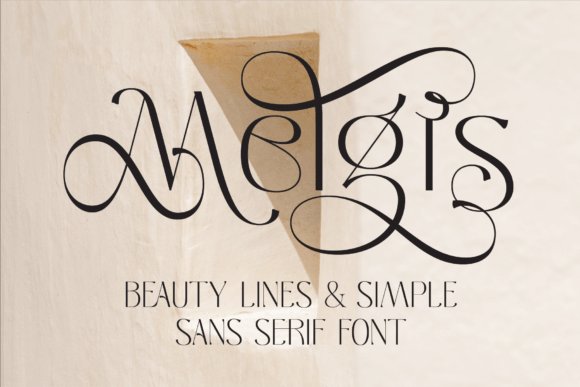
Melgis Font represents a harmonious blend of minimalist geometry and decorative fluidity. As a standout choice for those seeking fonts for beauty brand identities, it offers a clean sans serif foundation that is elevated by intentionally curved lines and artistic swash glyphs. This unique combination allows designers to maintain a sense of modern professionalism while injecting a softer, more feminine energy that resonates deeply with the skincare and wellness sectors. The font’s architecture is designed to remain legible at small scales on cosmetic labels while providing enough character to command attention on large-scale retail posters.
Beyond its primary structure, the inclusion of custom swashes makes Melgis an exceptionally versatile tool for creating bespoke logotypes. Whether you are developing a high-end magazine layout or a boutique digital storefront, these graceful accents provide a custom-lettered feel that suggests artisanal quality. It excels when paired with high-resolution photography, where its elegant curves can mirror the natural silhouettes often found in beauty-focused visual storytelling, making it a definitive asset for contemporary branding kits.
2. Akros Font
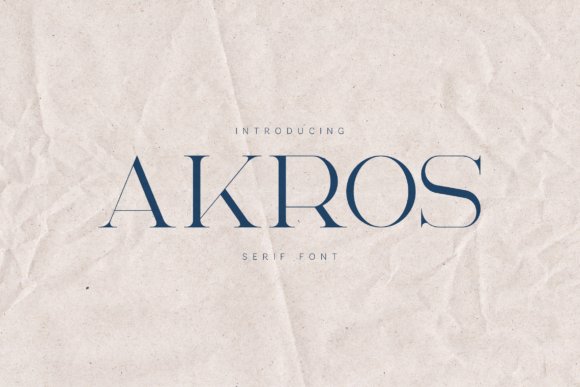
Akros Font is a masterclass in high-contrast typography, specifically engineered for editorial discipline and high-fashion aesthetics. This typeface bridges the gap between intellectual refinement and bold, structural power, featuring razor-thin hairlines that transition sharply into substantial stems. When searching for fonts for beauty brand applications that require a sense of ‘haute couture,’ Akros delivers a rhythmic visual pace that feels both energetic and sophisticated. Its slender proportions and sharp terminals make it an ideal candidate for luxury packaging where every millimeter of space must convey a sense of premium exclusivity.
In practical application, Akros thrives in large-scale environments such as billboard headlines or oversized book covers where its intricate details are fully realized. For digital designers, it serves as a powerful centerpiece for boutique web headers, especially when contrasted with simple, low-contrast geometric types. Its ‘fashion-forward’ edge is particularly effective for fragrance branding or professional salon identities, providing a timeless classic aesthetic that remains firmly rooted in the current trends of global luxury markets.
3. Rokina Font
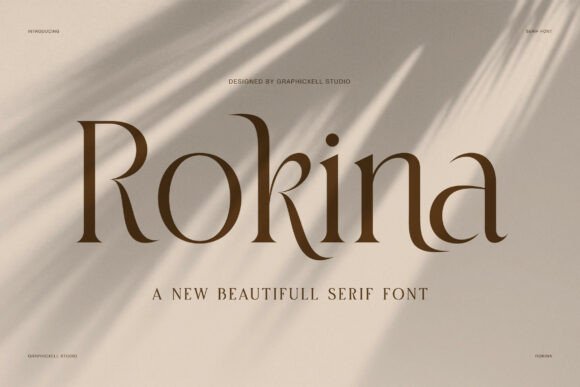
Rokina Font brings an air of organic luxury to the table, characterized by its sweeping curves and calligraphic terminals. It acts as a bridge between traditional serif heritage and a contemporary, chic flair, making it one of the most distinctive fonts for beauty brand projects currently available. The elongated, artistic descenders and flared serifs create a sense of movement and prestige that is often missing from more rigid typefaces. This makes Rokina particularly effective for lifestyle branding where the goal is to evoke a sense of effortless grace and high-end artisanal craftsmanship.
This typeface is an exceptional choice for designers working on upscale magazine headers or boutique wedding suites that require a personal, yet authoritative touch. Its sophisticated silhouette works beautifully on textured paper stocks and matte-finish packaging, where the play of light can highlight its unique, high-contrast terminals. By integrating Rokina into a visual identity, brands can instantly elevate their perceived value, signaling to a discerning audience that their products belong in the realm of premium, curated experiences.
4. Benpark Font
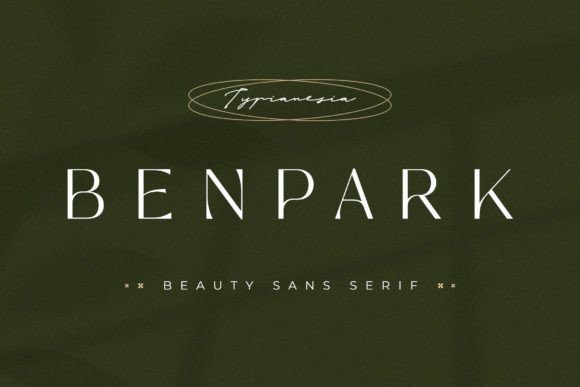
Benpark Font arrives as a robust yet graceful typographic solution for creators seeking a balance between high-impact visibility and delicate artistry. While it carries the weight of a bold serif, its structural integrity makes it a standout selection for a sophisticated beauty brand looking to establish a sense of heritage and trust. It excels in large-scale applications, such as boutique signage or premium product packaging, where the interplay of thick and thin strokes can truly shine under the spotlight of luxury marketing.
Beyond its initial elegance, this typeface offers a versatile personality that adapts seamlessly across various stationery and digital platforms. For designers working on wedding collateral or high-end social media campaigns, Benpark provides a distinct visual anchor that feels both timeless and current. Its authoritative presence ensures that brand messaging remains legible and captivating, making it a reliable asset for any visual identity project that prioritizes class and distinction.
5. Odida Font
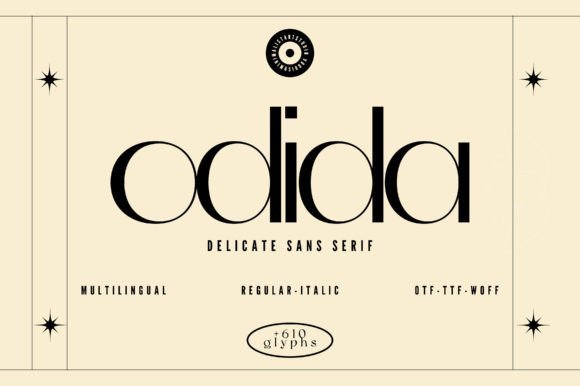
Odida Font is the epitome of modern minimalism, offering a sleek sans serif profile that resonates deeply with contemporary fashion and lifestyle sectors. Its clean lines and balanced proportions make it an ideal font for beauty brand initiatives that aim for a “less is more” aesthetic. Whether you are developing a logo for a new skincare line or designing a high-fashion digital lookbook, Odida provides a crisp, breathable quality that allows the imagery and product benefits to take center stage without distraction.
The font’s sophisticated architecture is purpose-built for luxury brand advertising where clarity and chic execution are paramount. It avoids the clutter of overly decorative elements, instead relying on its geometric precision to convey a sense of premium quality and professional reliability. Incorporating Odida into your design toolkit allows for a seamless transition between print advertisements and mobile-first web interfaces, ensuring a consistent and polished brand experience for the discerning consumer.
6. Brillant Font
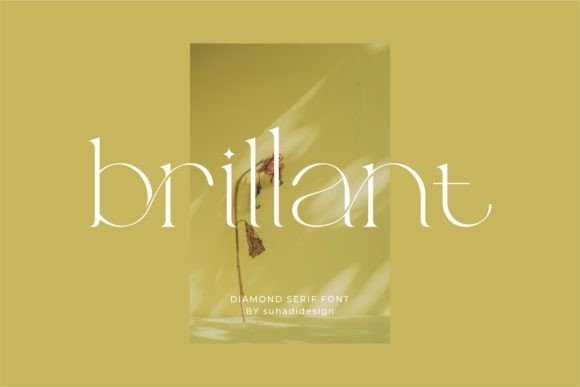
Brillant Font stands as a contemporary favorite within the design community, specifically tailored for those who require a stylish, modern serif that radiates exclusivity. Its popularity in the editorial world stems from its ability to elevate the perceived value of any publication, from high-gloss beauty magazines to niche art books. The typeface captures a unique blend of classic elegance and trendy flair, making it the perfect choice for branding projects that need to feel both established and forward-thinking in their visual communication.
When utilized for business cards, logos, or editorial headers, Brillant adds a layer of depth and sophistication that is hard to replicate with standard fonts. It is particularly effective for beauty brands that want to emphasize a premium, boutique feel through their typography. By focusing on refined curves and a high-contrast weight distribution, this font ensures that every word on a page or screen contributes to an overall narrative of luxury, quality, and impeccable taste.
7. Simple Plant Font
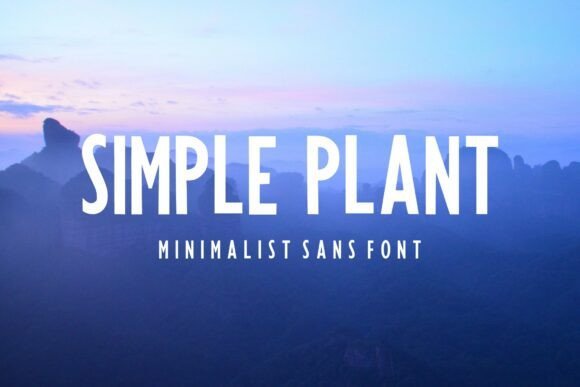
Simple Plant emerges as a masterclass in minimalist typography, offering a tall and condensed profile that immediately draws the eye upward. This typeface is defined by its clean, elongated strokes and an uncompromising devotion to the ‘less is more’ philosophy. It is particularly effective for editorial layouts and modern lifestyle branding where vertical space needs to be utilized with grace. By providing a sharp, architectural quality, it transforms standard headers into sophisticated design statements that feel both contemporary and timeless.
When searching for the perfect Fonts for Beauty Brand, this typeface offers a distinct advantage for clean skincare or sustainable cosmetic lines. Its legibility is unmatched, making it a reliable choice for ingredient lists on packaging or sleek web navigation menus. Pairing Simple Plant with a softer, organic script can create a compelling typographic hierarchy that balances clinical precision with human warmth, ensuring your brand identity remains approachable yet professionally polished.
8. Montega Font
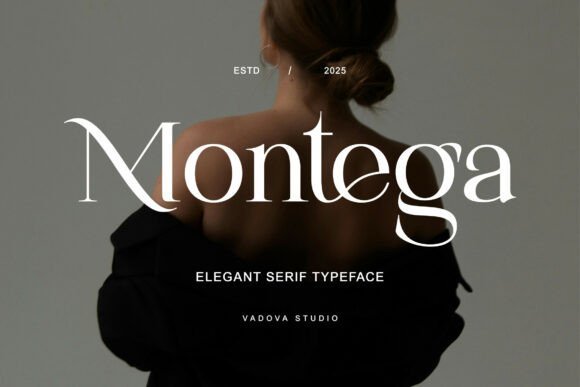
Montega is a high-contrast serif that radiates luxury and feminine strength. Its design language is characterized by graceful curves and razor-thin serifs that create a rhythmic, melodic reading experience. Unlike more traditional serifs, Montega feels light and breathable, making it an exquisite selection for high-end fashion mastheads and luxury brand logos. The deliberate weight distribution between its thick and thin strokes provides a sense of motion and confidence that captures the essence of modern opulence.
In the context of selecting Fonts for Beauty Brand, Montega excels at establishing an upscale, boutique atmosphere. It is a powerful tool for fragrance packaging or high-performance makeup branding where the goal is to convey heritage and premium quality. Using this font for primary logotypes ensures that the brand name is perceived as a mark of excellence, effectively anchoring the visual identity in a world of refined aesthetics and sophisticated charm.
9. Honey Dove Font
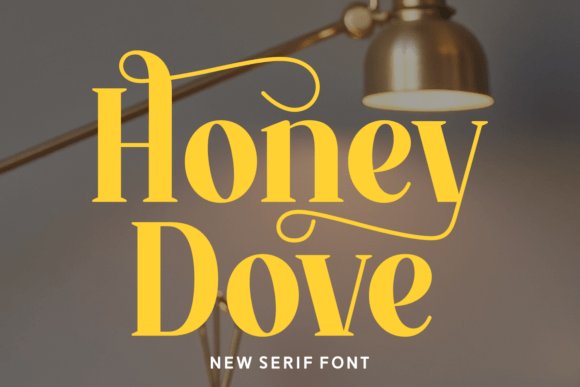
Honey Dove introduces a romantic and soft-edged approach to modern serif design, blending classic typographic principles with a trendy, boutique-inspired flair. Each character is crafted with a delicate touch, featuring subtle calligraphic influences that evoke feelings of intimacy and handcrafted quality. This makes it an exceptional choice for social media influencers and creative entrepreneurs who want their visual presence to feel personalized and emotionally resonant, rather than just corporate.
This typeface is an indispensable asset when considering Fonts for Beauty Brand that focus on wellness, bridal aesthetics, or organic ingredients. Its sweet and transfixing curves work beautifully on invitations and promotional posters, offering a dreamy vibe that captures the imagination of a trendy audience. Honey Dove doesn’t just display text; it sets a mood of modern romance and effortless glamour, making it a top-tier candidate for any brand looking to build a deep, stylish connection with its followers.
10. Flowmery Font
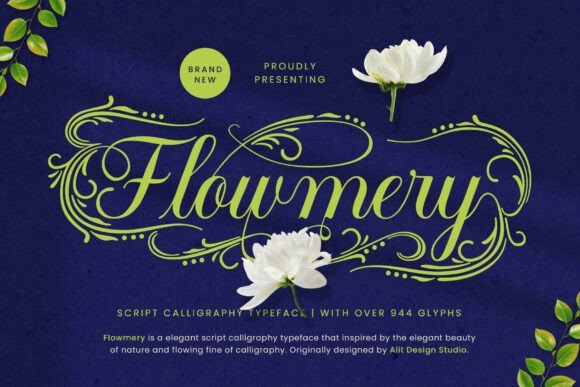
Flowmery Font is a masterclass in organic elegance, drawing its breath from the fluid lines of the natural world and the disciplined grace of traditional calligraphy. This script typeface is particularly effective as one of the premier fonts for beauty brand identities that prioritize a botanical or artisanal image. With over 944 glyphs at your disposal, it offers an incredible degree of customization, allowing designers to weave intricate swashes and seamless ligatures into high-end skincare packaging or custom logotypes that feel uniquely personal and hand-rendered.
Beyond its visual appeal, Flowmery serves as a versatile toolkit for luxury wellness projects and editorial layouts. The meticulous design ensures that every character connects with a harmonious rhythm, making it an excellent choice for wedding stationery, sophisticated social media quotes, and website headers. By integrating this typeface, creators can establish a visual narrative of ‘natural charm,’ perfectly suited for premium cosmetic lines that want to communicate softness, purity, and timeless sophistication.
11. Decemberain Font
Decemberain Font offers a fresh take on the classic serif, blending casual accessibility with a refined, editorial polish. Available in both Regular and Italic styles, this typeface provides a balanced aesthetic that works exceptionally well for lifestyle and beauty branding where clarity and personality must coexist. Its clean lines and gentle curves make it an ideal primary font for beauty brand websites and print materials, providing a legible yet stylish experience that feels modern and approachable rather than overly traditional.
The versatility of Decemberain makes it a reliable choice for a wide range of creative applications, from minimalist product labels to sophisticated publishing layouts. Whether you are designing for a boutique florist, a high-end furniture brand, or a modern skincare line, the font’s distinct character helps differentiate a brand in a crowded market. The italic style, in particular, is perfect for emphasizing luxury taglines or creating a sense of movement in digital mastheads, ensuring your typography remains as dynamic as your brand.
12. London Font
London Font encapsulates the essence of ‘quiet luxury’ with its ultra-slender, sweeping letterforms that mimic the effortless signature of a high-fashion designer. This modern handwritten typeface is specifically tailored for those seeking a minimalist-luxe aesthetic, making it one of the most distinctive fonts for beauty brand signatures and premium cosmetics packaging. The wide, airy rhythm of the characters creates a sense of space and sophistication, allowing the typography to breathe even in high-contrast or busy visual environments.
Technically proficient and PUA encoded for ease of use, London provides full access to a variety of elegant swashes that can transform a simple brand name into a high-end logo. It is the perfect partner for modern serifs, creating a sophisticated hierarchy for jewelry lines, luxury lifestyle blogs, and professional photography watermarks. Use it to add a human touch to digital interfaces or to elevate the tactile experience of premium stationery, ensuring every touchpoint of your brand exudes international style and contemporary grace.
13. Elinora Font
Elinora is a masterclass in capturing the delicate intersection of romance and artisan craftsmanship. This handwritten script font features a rhythmic, bouncy baseline that mirrors the natural cadence of a personal note, making it an exceptional asset for those curating a specific font for beauty brand identities that value authenticity. Its soft, rounded letterforms provide an approachable yet sophisticated energy, while the subtle heart-dotted ‘i’ adds a touch of whimsical sincerity without compromising professional legibility. It is particularly effective for small-batch skincare labels or boutique wellness services looking to establish a warm, human-centric connection with their audience.
Beyond its aesthetic appeal, Elinora excels in digital-first environments. Its organic lines remain crisp on mobile screens, making it a reliable choice for Instagram story overlays, personalized quote graphics, and lifestyle blog headers. When paired with a minimalist color palette, this typeface transforms into a luxury signature, perfect for gold-foiled business cards or custom wedding stationery. For designers working within the ‘clean beauty’ niche, Elinora offers a handcrafted feel that reinforces the concept of purity and care, ensuring that every headline feels as though it were written just for the customer.
14. Seliya Gadner Font
Seliya Gadner redefines the modern serif with its high-fashion silhouette and dramatic stroke contrast. This typeface is built for the high-end market, where visual prestige is paramount. Its sharp, elegant serifs and artistic ligatures create a bespoke look that rivals custom-lettered logotypes, positioning it as a top-tier font for beauty brand packaging and luxury cosmetic lines. The verticality of the characters exudes a sense of tall, slender grace often seen in prestigious editorial layouts and high-gloss fashion magazines, making it the go-to selection for brands that want to command authority in the prestige beauty sector.
The versatility of Seliya Gadner lies in its ability to remain timeless while feeling entirely contemporary. Whether utilized for a chic perfume bottle label or a premium spa menu, the typeface brings a level of effortless sophistication that is difficult to replicate with standard serifs. It functions beautifully as a primary branding element, where the unique character interactions can be leveraged to create memorable icons and mastheads. For creative directors aiming to evoke a sense of heritage and luxury, this font provides the necessary weight and refinement to elevate any product from shelf-ready to iconic status.
15. Super Moon Font
Super Moon is an ethereal display serif that brings a sense of nighttime magic and celestial wonder to the design landscape. Characterized by its elongated vertical proportions and razor-sharp, pointed serifs, this font offers a dreamlike aesthetic that is uniquely suited for mystical or storytelling-driven projects. It is a standout font for beauty brand collections that focus on nighttime skincare routines, astrological wellness products, or luxury candles. The high-contrast strokes create a shimmering effect when set against dark backgrounds, effectively drawing the eye and establishing a high-impact focal point for editorial headers and cosmetic branding.
Technically, Super Moon is optimized for display use, ensuring that its delicate details and slender forms remain sharp at large scales. This makes it an ideal candidate for theatrical movie posters, luxury boutique signage, and high-fashion digital campaigns. To maximize its impact, designers can pair it with metallic textures or deep, atmospheric gradients to lean into its cosmic inspiration. For brands that want to break away from the mundane and offer their customers an experience rooted in wonder and elegance, Super Moon provides the perfect typographic bridge between the terrestrial and the divine.
16. Kayla Font
Kayla introduces a breathtakingly intricate aesthetic to the world of decorative typography, where each uppercase character serves as a miniature canvas for a lush, butterfly-filled garden. This typeface transcends mere lettering, offering a complex visual texture that merges natural organic shapes with a bold, structured silhouette. It is an exceptional choice for luxury beauty brands that want to communicate a sense of rebirth, metamorphosis, or botanical purity through their visual identity.
Beyond its ethereal appearance, Kayla is a powerful tool for niche marketing materials, such as high-end cosmetic packaging, floral-infused skincare lines, or boutique salon signage. When searching for fonts for beauty brands that require a high-impact, illustrative touch, this font stands out by providing a dreamy, fairytale quality that feels both premium and magical. It is best utilized in large-scale headers or hero sections where its meticulous butterfly patterns can be fully appreciated by the audience.
17. Cakep Font
Cakep Font embodies the fluid dynamics of water and the crystalline clarity of high-end jewelry, making it a premier script choice for modern wellness and apothecary brands. Its polished curves and effortlessly flowing ligatures suggest a sense of vitality and invigorating energy, perfect for products centered around hydration, purity, and organic luxury. The typeface resonates with a rhythmic grace, ensuring that brand names appear sophisticated yet approachable, capturing the ‘clean beauty’ aesthetic that dominates today’s market.
For designers crafting an identity for a spa, a luxury fragrance, or a revitalizing skincare series, Cakep offers the versatility needed to maintain elegance across both digital and physical mediums. It works exceptionally well on beverage labels and lifestyle content where a touch of ‘chic’ is required to elevate the user experience. Its sharp, clear characters ensure that even with its script-like movement, the messaging remains legible and authoritative, providing a distinct voice in the competitive beauty landscape.
18. Fragier Font
Fragier Font is a masterclass in modern serif design, blending traditional elegance with contemporary ligature work to create a highly fashionable typographic experience. Its high-contrast strokes and stylish swashes are designed to capture the eye, making it an ideal candidate for editorial beauty layouts, luxury magazine mastheads, and premium product branding. The font exudes a sense of curated sophistication, allowing beauty brands to position themselves as industry leaders in style and taste.
As a highly functional PUA-encoded typeface, Fragier allows designers to easily access a variety of unique glyphs that can transform a standard logo into a custom piece of art. This flexibility is particularly valuable for fragrance houses and high-fashion skincare brands looking to establish a signature look that is both timeless and trendy. Whether used for a minimalist book cover or a complex branding suite, Fragier delivers a level of refinement that naturally complements the upscale world of beauty and fashion.
19. Roundique Font
Roundique Font introduces a whimsical yet sophisticated calligraphy style that captures the essence of romance through its rhythmic, dancing baseline. This typeface is specifically crafted for designers seeking a soft, human-centric aesthetic for their creative projects. When selecting fonts for beauty brand identities, Roundique stands out for its ability to convey a sense of gentle care and artisanal quality, making it an exquisite choice for luxury skincare labels, organic beauty products, and bridal-focused cosmetic lines.
Functionality meets elegance with its PUA encoding, which provides seamless access to a rich variety of decorative glyphs and ligatures without requiring complex design software. Beyond simple text, this font acts as a decorative element itself, perfect for high-end spa menus, delicate perfume packaging, and personalized social media graphics that need a touch of hand-lettered luxury. Its fluid strokes ensure that your brand voice remains both approachable and distinctly premium in a crowded marketplace.
20. Lorimthy Script Font
Lorimthy Script Font bridges the gap between casual lifestyle aesthetics and professional branding with its smooth, flowing connections and friendly rounded terminals. This modern script offers a clean, legible rhythm that avoids the clutter often found in traditional calligraphy. For those searching for contemporary fonts for beauty brand assets, Lorimthy provides a chic, boutique-inspired feel that resonates particularly well with millennial and Gen Z audiences who value authenticity and effortless style.
This typeface excels in digital-first environments, providing a polished look for lifestyle blogs, influencer kits, and e-commerce storefronts. Its versatile nature allows it to transition perfectly from digital screens to physical packaging, such as botanical hair care bottles or minimalist candle labels. By balancing a handcrafted personality with a structured layout, Lorimthy Script ensures that your marketing materials feel both bespoke and expertly curated, elevating the overall perceived value of any artisanal collection.
21. Zacorsea Font
Zacorsea Font is a masterclass in modern luxury, featuring high-contrast serif structures and beautifully integrated ligatures that evoke an editorial feel. Designed with a focus on feminine strength and royal sophistication, this typeface is an ideal cornerstone for high-end fashion and cosmetic identities. In the search for the most impactful fonts for beauty brand logos, Zacorsea offers a sharp, clean elegance that commands attention on luxury perfume boxes, anti-aging serum bottles, and high-fashion editorial layouts.
The intricate ligature work within Zacorsea allows designers to create custom-looking wordmarks that feel unique and proprietary. Its graceful curves and refined letterforms provide a timeless quality that doesn’t rely on fleeting trends, making it a sustainable choice for brands aiming for a legacy status. Whether utilized for a minimalist spa signage or a bold, center-aligned magazine headline, this font brings a level of polished exclusivity that defines the visual language of modern premium beauty.
22. Opulent Editorial Font
Opulent Editorial Font captures the essence of high-fashion magazine spreads, offering a refined typographic experience that feels right at home in a luxury skincare campaign. Its high-contrast strokes and sharp serifs evoke a sense of heritage and prestige, making it a standout choice for designers looking for fonts for beauty brands that need to convey authority and exclusivity. Whether applied to a minimalist logo or a detailed product description, this typeface maintains its poise and clarity across various high-end applications.
Beyond its editorial roots, this font excels in creating a cohesive brand identity for boutique spas and premium cosmetics. The delicate balance between its thick and thin lines provides a rhythmic grace that complements sophisticated packaging and digital storefronts. By integrating this typeface into your design system, you ensure that every touchpoint—from social media graphics to physical labels—radiates a polished, curated aesthetic that resonates with a discerning clientele.
23. Nevalisa Font
Nevalisa Font breaks away from traditional serif constraints to offer an avant-garde look that is perfect for niche, artistic ventures. Its sharp, unconventional serifs and dynamic structural flow make it a compelling choice for a beauty brand font that aims to disrupt the market with a modern, edgy identity. This typeface is particularly effective for high-impact headlines and visionary editorial layouts where the typography itself serves as a central piece of art, drawing the eye with its distinctive character and creative flair.
Functionally, Nevalisa bridges the gap between classic elegance and futuristic design, providing a unique personality for cutting-edge beauty tech or experimental fragrance lines. The bold letterforms command attention on product packaging and digital headers, ensuring your brand message is both memorable and visually striking. If you are seeking a typeface that refuses to blend into the background, this font provides the necessary architectural strength and artistic depth to elevate your creative projects to a professional, high-concept level.
24. Carina Font
Carina Font is defined by its clean, modern lines and an effortless sense of sophistication that makes it incredibly versatile for everyday luxury. Designed with legibility and grace in mind, it serves as an excellent foundation for an organic beauty brand font or a wellness-focused lifestyle magazine. The letterforms are balanced and approachable, providing a welcoming yet professional atmosphere that builds trust with consumers through clear, stylish communication.
This typeface is especially suited for designers who need a reliable workhorse that doesn’t sacrifice aesthetic appeal for functionality. Its streamlined serif structure works beautifully in both digital interfaces and printed marketing materials, from sleek business cards to immersive web experiences. By choosing Carina, you are opting for a timeless style that enhances the visual quality of your brand without overpowering the content, allowing your products and services to take center stage in a crowded marketplace.
25. Notes Font
Notes Font is a masterclass in fluidity, offering a refined handwritten script that captures the essence of high-end penmanship. With its elongated, sweeping swashes and rhythmic flow, it brings a bespoke touch to any visual identity. For designers seeking sophisticated fonts for beauty brand projects, this typeface provides that sought-after signature look, making it an exceptional choice for luxury skincare labels or editorial photography watermarks where a personal, human connection is paramount to the brand story.
Beyond its visual appeal, the technical ease of Notes makes it a staple for modern creators. Because it is PUA encoded, users can access all the elegant flourishes and alternates without needing specialized design software. When paired with a minimalist serif, it creates a sophisticated contrast that excels in high-fashion branding, wedding invitations, and boutique stationery, ensuring every layout feels both intimate and professionally polished while maintaining a sense of timeless grace.
26. Charmy Font
Charmy Font introduces a playful and modern aesthetic to the world of script typography, characterized by its soft, thick strokes and a distinctive white-out border effect. This ready-to-use sticker appearance makes it an invaluable asset for social media assets, particularly for influencers and indie labels looking for approachable fonts for beauty brand identities. Its friendly volume and rounded terminals create an immediate sense of warmth, perfect for catching the eye on busy retail shelves or vibrant digital storefronts where accessibility is key.
This typeface is particularly effective for small-batch artisan products, such as handmade candles or organic cosmetics, where a human and accessible voice is required. By combining Charmy with a highly structured serif, designers can achieve a modern-chic brand identity that feels both organized and whimsical. Whether you are crafting playful product labels or intimate thank you cards for customers, Charmy provides a distinctive, bubbly personality that resonates deeply with a youthful and trend-conscious audience.
27. Paris Kissy Font
Paris Kissy Font evokes the effortless charm of European calligraphy, blending vintage nostalgia with a lively, bouncy baseline. This retro-stylish script feels like a handwritten love letter, offering a level of expressive movement that is rare in digital typefaces. For those searching for romantic fonts for beauty brand logos or boutique apothecary packaging, its smooth, connected curves provide an artisanal quality that suggests luxury through heritage and craftsmanship, making every product feel like a curated treasure.
The versatility of Paris Kissy extends into travel photography and high-end lifestyle content, where its whimsical character adds a layer of sophisticated storytelling. It features a comprehensive character set and full multilingual support, making it a robust choice for international campaigns. Whether applied to a chic cafe menu or a vibrant tourism advertisement, this font ensures that every word feels personalized and deeply evocative of a boutique, hand-touched aesthetic that elevates the visual experience.
28. Silka Shine Font
Silka Shine Font introduces a vibrant, three-dimensional energy to any project, mimicking the high-gloss finish of fresh lacquer or inflated balloons. Its distinctive internal highlights create a natural sense of depth, making it an exceptional choice for a beauty brand that focuses on radiant skin, glossy lip products, or high-shine nail polishes. The letterforms are generous and rounded, exuding an approachable, celebratory spirit that is perfect for youthful product launches and festive retail campaigns.
When searching for fonts for beauty brand identities that need to feel energetic and fun, this typeface stands out by offering a literal ‘sparkle’ to the typography. It works wonders on packaging for sugary cosmetic collections or as a hero element on social media banners announcing a new ‘glow’ routine. To maintain a professional balance, pair Silka Shine with a minimalist, geometric sans-serif for body copy, allowing the glossy display headers to command the spotlight without overwhelming the overall layout.
29. Blade Rush Font
Blade Rush Font is a sophisticated evolution of the classic sans-serif, blending sharp editorial precision with fluid, decorative swashes. This typeface is designed for the high-end luxury sector, where elegance and authority must coexist. The inclusion of unique swash glyphs allows designers to customize logos and headlines, giving a bespoke feel to premium cosmetic labels and fashion magazine spreads. Its clean lines and balanced proportions ensure legibility across both digital storefronts and physical print materials.
For a beauty brand aiming for a high-fashion aesthetic, Blade Rush Font provides the necessary versatility to transition from minimalist product descriptions to bold, expressive hero statements. The multilingual support and extensive ligature set make it a robust tool for global branding, ensuring a consistent look across various international markets. It is best utilized in layouts that embrace negative space, allowing the graceful curves of the swashes to serve as a subtle visual hook for discerning customers.
30. Soft Glow Font
Soft Glow Font captures the essence of contemporary wellness and ‘clean beauty’ through its enchanting, monoline tubular design. The characters feature softly rounded, pill-like terminals that evoke a sense of calm, approachability, and organic warmth. This aesthetic is particularly effective for artisanal skincare lines or holistic wellness platforms that prioritize a gentle, feminine touch. Its consistent stroke weight and airy structure provide a modern apothecary feel that looks both premium and friendly.
In the competitive landscape of fonts for beauty brand projects, Soft Glow Font offers a unique niche by blending whimsy with structural clarity. It is an ideal candidate for romantic stationery, gentle apparel branding, or serene social media content where the visual tone needs to be lighthearted yet sophisticated. Because of its distinct inflated appearance, it functions beautifully as a standalone logo mark or for short, impactful phrases that invite the viewer into a world of comfort and self-care.
31. Poffina Font
Poffina Font stands out as a geometric yet organic sans serif that replaces clinical coldness with inviting, rounded terminals. Its bouncy nature makes it an exceptional choice when sourcing fonts for a beauty brand that prioritizes accessibility and joy over rigid luxury. The letterforms carry a certain tactile quality, reminiscent of smooth packaging and organic ingredients, which helps establish immediate trust with a younger, trend-conscious demographic.
Beyond its aesthetic charm, Poffina excels in digital environments where readability and personality must coexist. Whether it is the primary typeface for a clean skincare UI or the headline for a lifestyle blog, its soft curves maintain clarity at various weights. Designers can leverage this font to create a cohesive brand identity that feels both modern and undeniably human, bridging the gap between minimalist professionalism and playful creativity.
32. Brays Font
Brays Font introduces a sophisticated editorial flair to the world of high-end design, blending traditional serif structures with contemporary ligature work. It addresses the growing demand for typefaces that feel custom-made and artisanal, offering a sense of exclusivity that is vital for luxury positioning. When searching for fonts for a beauty brand that targets the premium market, the stylish alternating glyphs and swashes in Brays provide a bespoke look that rivals high-fashion typography.
The versatility of this typeface allows it to transition seamlessly from the glossy pages of a beauty magazine to the textured surface of premium product packaging. Because it is PUA encoded, designers have full access to its decorative flourishes, enabling the creation of unique brand marks and logos without requiring complex software. Brays is more than just a functional typeface; it is a visual statement that elevates brand identity through its refined contrast and timeless elegance.
33. Novaline Font
Novaline Font is a masterclass in minimalist grace, featuring a tall, monolinear construction that elongates the visual field. Its delicate silhouette provides a refreshing alternative to heavier display types, making it one of the most effective fonts for a beauty brand looking to convey lightness and purity. The consistent stroke weight ensures a clean, modern appearance that works exceptionally well for boutique labels where white space and understated luxury are the primary design drivers.
To maximize the impact of Novaline vertical rhythm, designers should pair it with generous tracking and neutral color palettes like ivory, charcoal, or soft gold. While its thin lines are perfectly suited for large-scale headlines and elegant logos, it also adds a sophisticated touch to social media headers and digital advertisements. By choosing this font, a brand communicates a sense of quiet confidence and contemporary refinement that resonates with an audience seeking premium, artisanal skincare and fashion.
34. Lonthe Font
Lonthe Font is a meticulously crafted monoline script that redefines how modern handwritten aesthetics can be integrated into high-end visual identities. Its consistent stroke weight and smooth, fluid transitions offer a sense of calm and clarity, making it an exceptional choice for minimalist skincare packaging or boutique spa branding. Unlike more chaotic scripts, Lonthe maintains a high level of legibility while still feeling deeply personal and authentic, bridging the gap between clinical precision and human touch.
For designers curating an upscale aesthetic, this typeface excels in social media storytelling and editorial headers where a sense of intimacy is required. When used as a font for beauty brand projects, Lonthe provides that sought-after organic feel that resonates with eco-conscious consumers. Its balanced flow ensures that whether it is printed on a small glass dropper bottle or featured in a large-scale campaign banner, the sophisticated and premium nature of the brand remains front and center.
35. Refined Sugarish Font
Refined Sugarish Font captures the vibrant, optimistic energy of the 1970s and translates it into a contemporary display serif that is impossible to ignore. Featuring soft, bubbly curves and a heavy headline presence, this typeface is perfect for beauty products that want to lean into the retro-revival trend. The rounded serif details evoke a sense of playfulness and approachability, making it a standout selection for cosmetic lines targeting Gen Z or brands focused on “sweet” scent profiles like vanilla or fruit-based fragrances.
Beyond its nostalgic charm, Refined Sugarish is a technical powerhouse equipped with ligatures and alternate characters that allow for custom-feeling typography in every layout. It functions beautifully as a bold display font for wellness center signage, bakery-inspired body care, or vibrant editorial spreads. By blending groovy 70s shapes with modern font technology, it offers a versatile solution for any brand identity that requires a mix of high-impact visibility and a warm, inviting personality.
36. Ray & Glow Font
Ray & Glow Font is a fashion-forward serif specifically engineered to meet the demanding visual standards of the luxury fragrance and skincare sectors. The typeface is defined by its sharp contrast and elegant proportions, echoing the typography found in high-end couture magazines. What truly sets Ray & Glow apart is its collection of unique ligatures, which transform standard text into a bespoke work of art, allowing designers to create distinctive logos and wordmarks that feel custom-made for elite clients.
In the competitive landscape of retail, this font for beauty brand applications ensures that packaging stands out on the shelf with a luminous and high-status appeal. The character set is designed to work harmoniously across both digital storefronts and physical product labels, maintaining its crisp edges and sophisticated flair. Whether you are launching a new line of serums or a high-pigment makeup collection, Ray & Glow provides the editorial weight and modern elegance needed to establish a credible, luxury presence in the market.
37. Luxmont Font
Luxmont serves as a masterclass in botanical typography, bridging the gap between high-end fashion and naturalistic design. It is an exceptional font for beauty brand identities that prioritize organic ingredients and holistic wellness. The delicate integration of floral elements within the letterforms allows for a logo that feels like a hand-drawn illustration while maintaining the precision of modern typesetting, giving your brand an immediate sense of artisanal craftsmanship.
Beyond its standard glyphs, the font’s specialized ligature system enables designers to craft custom headers for editorial skincare layouts or high-end product packaging. By weaving leaves and blooms into the text, Luxmont ensures that your messaging feels both premium and approachable. It is perfectly suited for a sustainable beauty line or a boutique spa retreat where the visual language needs to bloom as naturally as the products themselves.
38. Delight Font
Delight brings a sense of rhythmic grace to the digital canvas, offering a calligraphic style that mimics the fluid motion of a custom ink pen. This font for beauty brand projects is particularly effective when used for signature logos or personalized thank-you notes included in luxury shipping boxes. Its vertical elongation and sweeping loops create an air of exclusivity and personalized artistry, making it a standout choice for high-fashion perfume labels or artisanal apothecary brands.
The high-contrast strokes—shifting from bold downstrokes to whisper-thin connectors—provide a professional visual hierarchy that is often missing in more standard script faces. When paired with a minimalist sans serif, Delight acts as a sophisticated accent, ideal for highlighting product benefits on a cosmetics bottle or adding a touch of human warmth to a digital influencer kit or professional portfolio.
39. Jaima Kaira Font
Jaima Kaira is a high-fashion serif that demands attention through its sharp contrast and assertive, artistic curves. It is a definitive choice for a font for beauty brand campaigns that want to project confidence, modernity, and a touch of avant-garde flair. The bold letterforms make it incredibly legible on large-scale formats like billboards and digital banners, ensuring that your brand’s name remains etched in the viewer’s memory even at a distance.
Designers will appreciate the editorial weight this typeface brings to print media, such as lookbooks and luxury brochures. Its sophisticated silhouette works harmoniously with minimalist layouts, allowing the typography to act as the primary design element without being overwhelming. Whether you are launching a new professional makeup line or rebranding an upscale hair salon, Jaima Kaira provides the structural elegance needed to elevate your visual storytelling to a global standard.
40. Muttung Script Font
Muttung Script Font is a versatile dual-style typeface specifically crafted to capture the essence of high-end aesthetics. The Solid variant offers a polished, sleek silhouette that works exceptionally well for luxury cosmetic labels and minimalist skincare lines, where clarity and elegance are paramount. By contrast, the Rustic style introduces a textured, vintage sensation that grounds a brand in authenticity, making it a premier choice for organic beauty products or eco-conscious wellness companies looking to communicate a heritage-inspired narrative.
Beyond its visual appeal, this font provides an extensive collection of alternates, allowing designers to customize letterforms to fit unique brand identities. Whether you are designing secondary packaging for a boutique perfume house or creating digital assets for a luxury salon, the Muttung Script Font ensures your typography remains distinctive. Its ability to pivot between clean sophistication and weathered charm makes it an essential tool for any creative director seeking high-quality fonts for beauty brand projects.
41. Ardeline Charm Font
Ardeline Charm Font embodies a soft, romantic calligraphic style that mimics the fluid motion of ink on paper. Its delicate curves and graceful swashes create a visual rhythm that feels both intimate and professional, bridging the gap between handcrafted sincerity and high-end design. For businesses in the bridal and wellness sectors, this typeface offers an approachable yet sophisticated look that resonates with clients looking for a personal connection, making it one of the most effective fonts for beauty brand identities aiming for an emotional impact.
Technical versatility is a hallmark of Ardeline Charm, as it maintains its legibility across various mediums, from embossed wedding invitations to digital social media quotes. The font includes a comprehensive set of multilingual accents and punctuation, ensuring seamless integration into global marketing campaigns. Use it for signature logos, gold-foil packaging, or inspirational moodboards to elevate your visual storytelling with a touch of timeless elegance and feminine flair.
42. Honeyline Font
Honeyline Font is a sophisticated type duo that masterfully balances the authority of structured uppercase characters with the breezy, effortless nature of a handwritten lowercase script. This juxtaposition makes it an ideal solution for modern lifestyle and wellness labels that need to look both established and relatable. The bold capitals provide a solid foundation for primary logos and editorial headlines, while the script elements add a layer of human touch that is crucial for building community trust in the digital age.
When searching for fonts for beauty brand aesthetics that require a contemporary chic vibe, Honeyline stands out for its adaptability across social media content, storefront signage, and premium product packaging. It allows designers to create complex, multi-layered layouts without needing to find a secondary typeface, as the duo is perfectly tuned to complement itself. This font is particularly effective for boutique hotel amenities, wellness apps, and niche fragrance houses looking for a fresh, approachable aesthetic.
43. Girl Font
The Girl Font emerges as a quintessential selection when curating a visual identity for upscale skincare or boutique cosmetic lines. This script typeface is characterized by its exceptionally fluid strokes and a rhythmic, handwritten aesthetic that evokes a sense of personal care and bespoke luxury. In the competitive landscape of beauty branding, the soft curves and harmonious balance of this font provide a welcoming yet sophisticated atmosphere, making it a standout choice for high-end product packaging and editorial layouts where elegance is paramount.
Beyond its aesthetic charm, this font offers a high level of legibility that is often missing in more decorative scripts. Its clean, modern lines ensure that brand messages remain clear whether they are featured on a minimalist website header or a delicate perfume label. For designers seeking fonts for beauty brand projects, Girl provides the necessary versatility to transition from bold social media graphics to intimate wedding invitations. It effectively captures a feminine essence without feeling overly ornate, allowing the natural character of a brand’s mission to shine through its polished, professional letterforms.
Your choice of typography defines how your customers perceive your products, so investing time in these 43 Fonts for Beauty Brand selections is worth every second. By matching your brand personality with the right typeface, you ensure your marketing materials and product labels look cohesive and high-end throughout 2026. Pick the style that resonates most with your audience and start building a memorable visual legacy today.